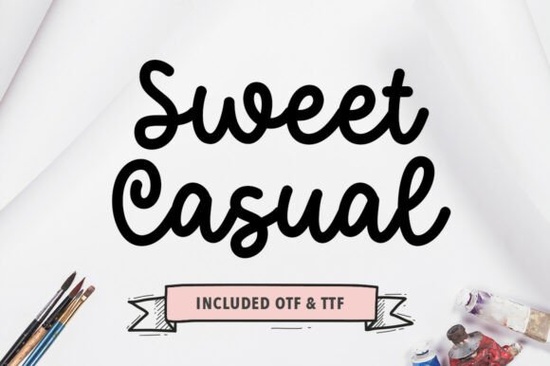
If you're looking for a script font that feels like it was written by hand but still looks polished and professional Sweet Casual Font is worth a closer look. It’s designed to mimic neat, modern handwriting with just enough personality to feel warm and inviting without veering into messy or overly decorative territory.
This font works especially well if your project calls for a personal touch think greeting cards, boutique packaging, cozy lifestyle branding, or even printable planners. The medium weight keeps it legible at small sizes, while the gentle loops and rounded terminals give it that soft, friendly vibe. Unlike some script fonts that can feel stiff or overly formal, Sweet Casual maintains a natural rhythm that flows from letter to letter, making it ideal for both short headlines and longer handwritten-style phrases.
When should you use Sweet Casual over other script fonts?
Not all script fonts are created equal. Some lean elegant and refined (like those you’d find in wedding stationery), while others are built for tracing practice or educational use (similar to what you’d see in our tracing font collection). Sweet Casual sits comfortably in the middle it’s casual but not sloppy, sweet but not cutesy.
It’s particularly effective when you want your design to feel:
- Approachable – perfect for small businesses targeting everyday customers
- Handcrafted – great for artisanal product labels or handmade goods
- Warm and personal – ideal for birthday invites, thank-you notes, or social media quotes
If your brand voice leans toward “friendly neighbor” rather than “luxury boutique,” this font aligns well with that tone.
How does it compare to similar fonts on Creative Fabrica?
Creative Fabrica offers a wide range of script fonts, each with its own mood. For example, Mistletoe Cottage has a rustic, holiday-ready charm with more pronounced swashes, while Thickloved Duo delivers bold contrast and romantic flair better suited for dramatic headlines than everyday use.
Sweet Casual, by contrast, avoids extreme flourishes. Its consistent slant and moderate x-height make it highly readable, even in digital formats like Instagram stories or Etsy shop banners. That balance is why many print-on-demand sellers and crafters return to it again and again: it photographs well, scales cleanly, and doesn’t distract from your message.
Tips for using Sweet Casual effectively
To get the most out of this font, keep these practical suggestions in mind:
- Pair it with a clean sans-serif. Fonts like Montserrat, Lato, or even system fonts like Helvetica Neue create a nice contrast without competing for attention.
- Avoid all caps. Like most script fonts, Sweet Casual shines in sentence case or title case. Uppercase letters disrupt its natural flow.
- Use generous spacing. Slightly increase letter-spacing (tracking) if you’re using it for short phrases it helps the loops breathe and improves readability.
- Test print quality. If you’re using it for physical products (stickers, mugs, tote bags), print a sample first. The fine connections between letters may need slight adjustments depending on your printer or production method.
And remember: while it’s tempting to add extra swashes or alternates, Sweet Casual already includes thoughtful details. Sometimes less styling is more.
Who is this font really for?
If you’re a small business owner creating your own packaging labels, a crafter designing printable wall art, or a POD seller building quote-based designs for mugs and T-shirts, Sweet Casual gives you a reliable, versatile tool that feels human not generic. It’s also beginner-friendly; you don’t need advanced typography skills to make it look good.
Even hobbyists making birthday cards for friends or customizing planner inserts will appreciate how effortlessly it conveys warmth without looking amateurish.
Before you finalize your design, consider whether your audience would respond better to something crisp and modern (like a geometric sans) or something with soul and softness. If it’s the latter, Sweet Casual likely fits the bill.
With its balanced personality and everyday versatility, Sweet Casual isn’t just another pretty script it’s a practical choice for creators who want their work to feel genuine, not overdesigned.